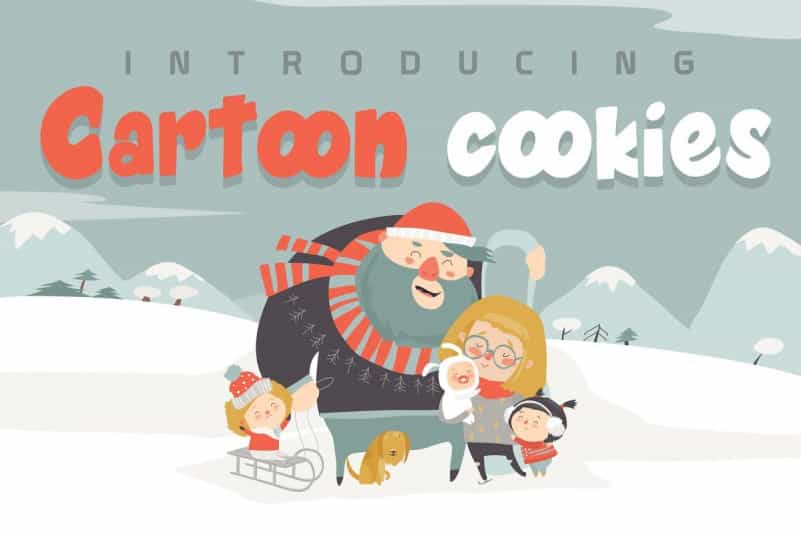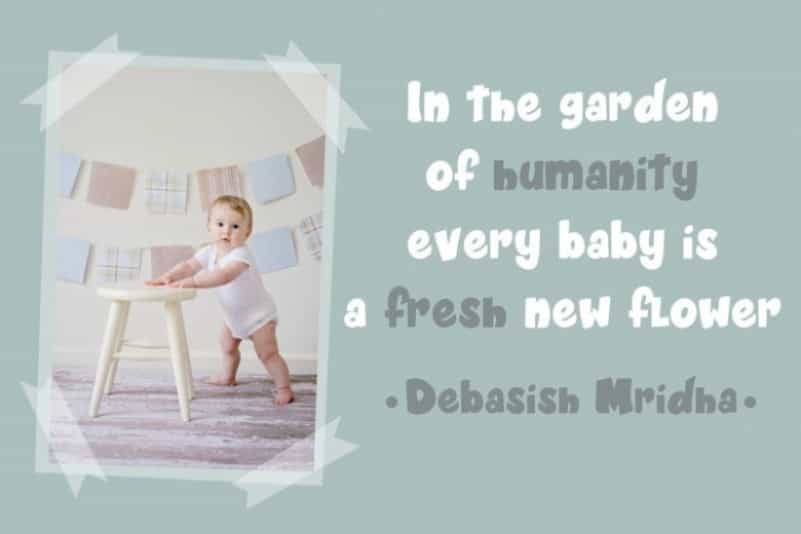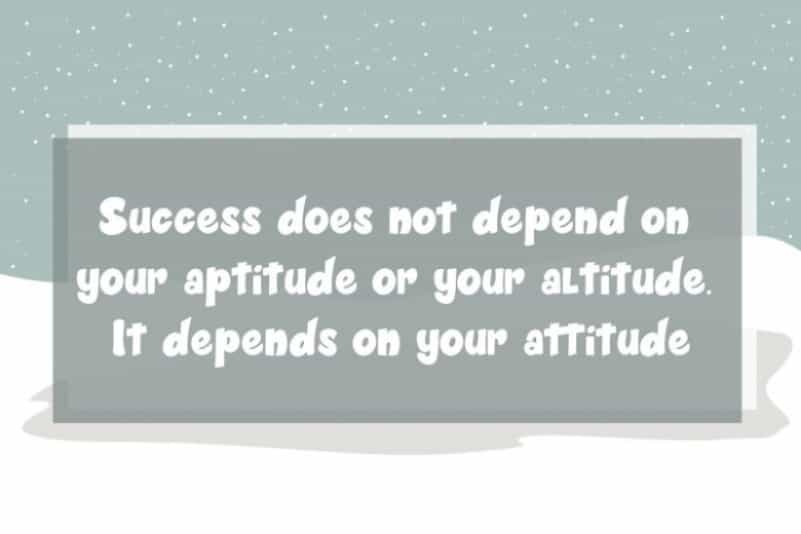
Cartoon Cookies is a daring display font. Exclusively bold and fun marker with bold and strong style. It is perfect for display, text, printing, branding, signage, and it has an optimal character set for your design in any layout.